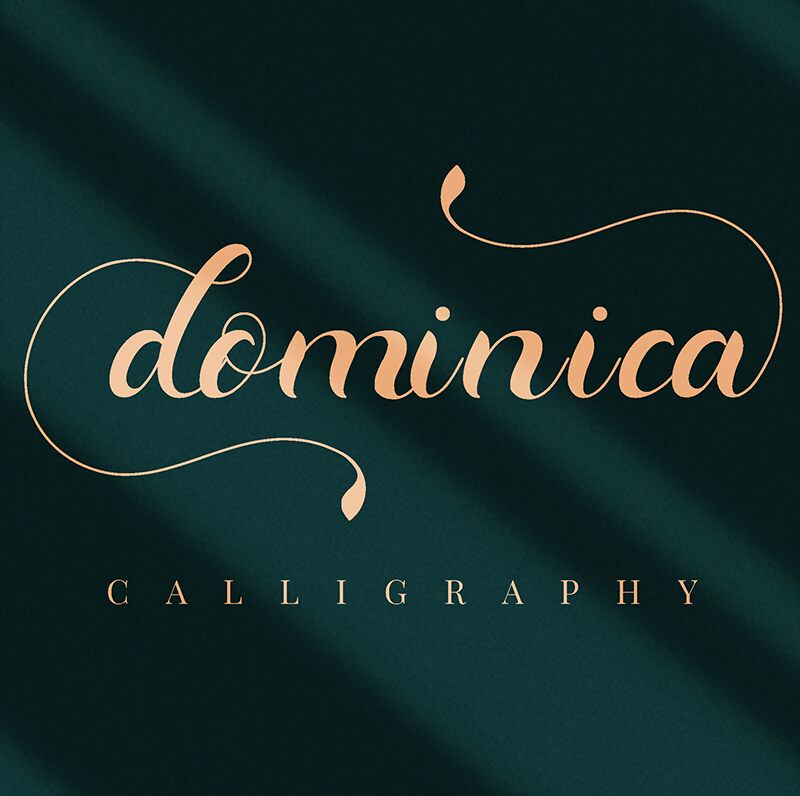
Dominica Calligraphy
With its elegant curves and fluid strokes, Dominica Calligraphy is the perfect font for adding a touch of sophistication to your projects. Designed by Ride Studio in 2021, this stunning calligraphy font is sure to impress with its timeless beauty and effortless grace. Whether you're creating wedding invitations, branding materials, or social media graphics, Dominica Calligraphy will elevate your design and make it stand out from the crowd. With its delicate yet bold lines and versatile style, this font is suitable for a wide range of projects – from luxurious fashion campaigns to whimsical children's book covers. Let Dominica Calligraphy bring your vision to life with its unparalleled beauty and charm.